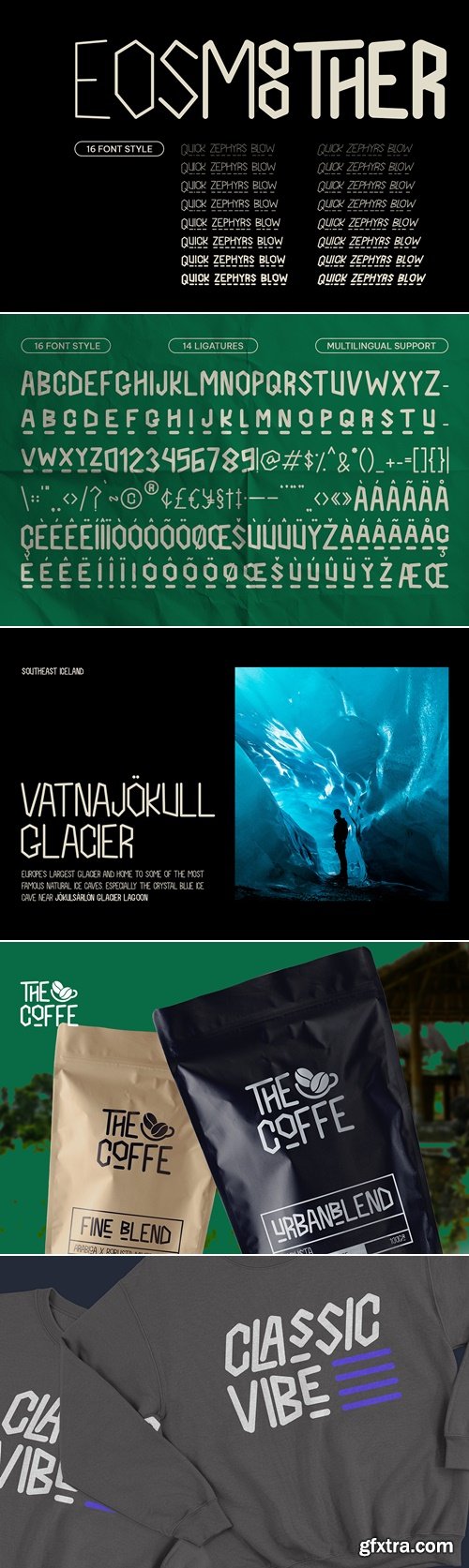
- EOSMOOTHER is a geometric sans display font family built with precision, structure, and a distinct futuristic tone. Each character is crafted with clean angles and smooth curves, making the typeface both minimal and memorable. Its bold geometry shines in headlines, editorial layouts, posters, tech interfaces, and branding that needs a forward-thinking edge. With 16 unique styles, EOSMOOTHER gives you the flexibility to create powerful visual hierarchies and experimental typographic compositions. Whether you're designing for modern fashion, sci-fi media, or lifestyle branding, EOSMOOTHER keeps your message clear and striking.